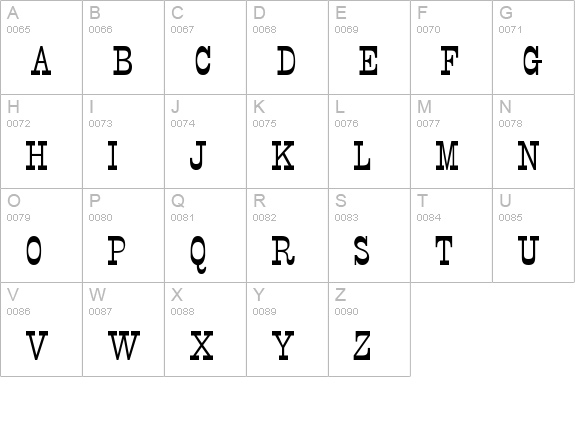
Circus Normal Font Details
Circus Normal is the standard, neutral variant in the Circus typeface family \xE2\x80\x94 well suited to general body text, paragraphs, and standard typographic work.
Circus Normal font is a whimsical and fun typeface that will add a touch of playfulness to your designs. With its rounded edges and bold strokes, this font is perfect for creating eye-catching headlines, posters, and invitations. Circus Normal font is free to download at FontsMarket.com, making it accessible to all designers looking to inject some creativity into their projects. Whether you're working on a circus-themed event or simply want to add a bit of flair to your designs, Circus Normal font is sure to make a statement. Get your hands on this delightful font today and let your imagination run wild!